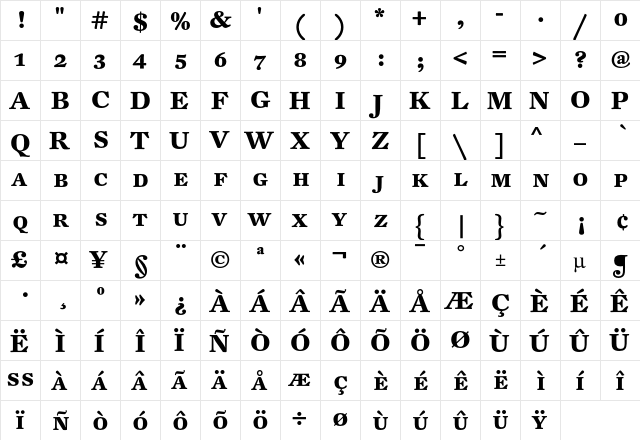
DTLFleischmannT CapsBold Font Preview
DTLFleischmannT CapsBold
Design Context for DTLFleischmannT Typeface
DTLFleischmannT takes a measured approach to typography — its balanced proportions and neutral character make it a reliable workhorse for both digital and print work. Its bold stroke weight gives it real presence on the page.